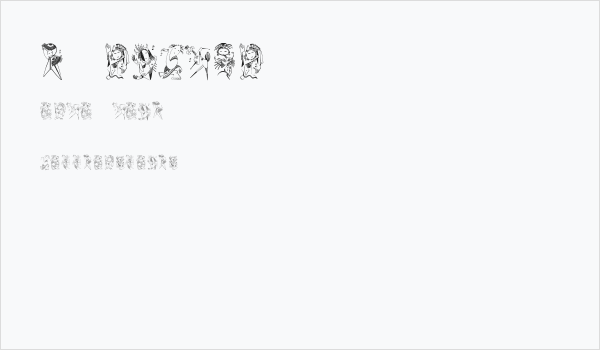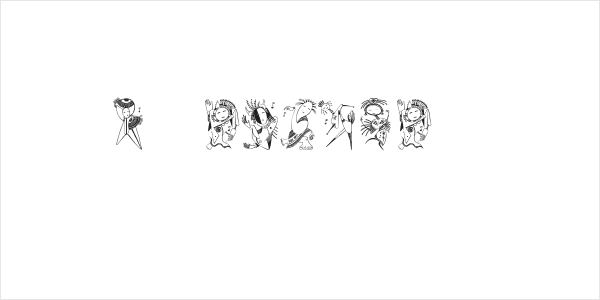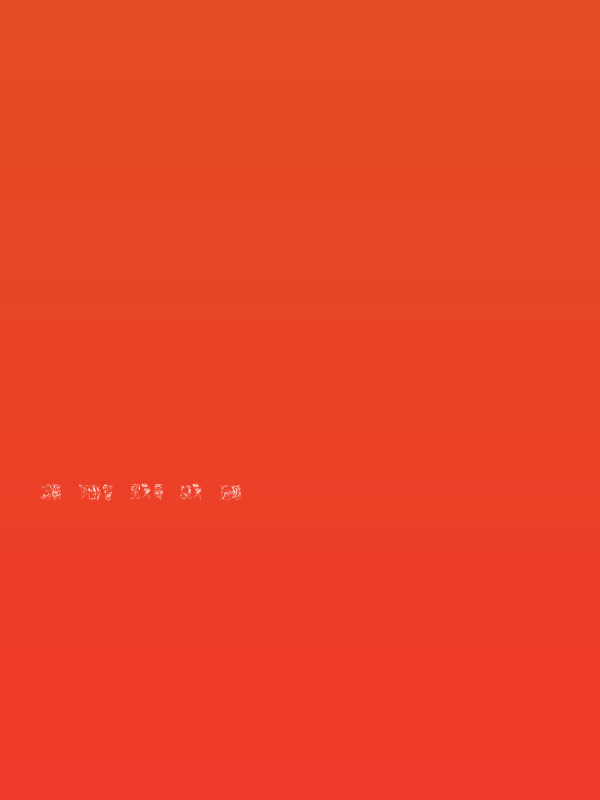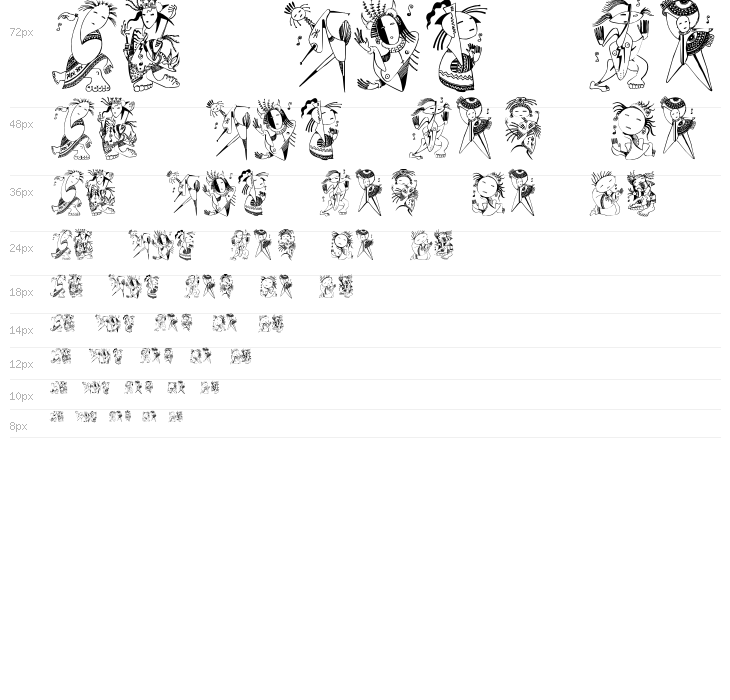
Z-Most Kachina 1 Font
Z-Most Kachina 1 Description
This is not a traditional font but rather a collection of artistic illustrations representing characters in a whimsical and playful style. Each character is uniquely designed with intricate details, showcasing a variety of expressions and poses. The designs are rich in cultural motifs and patterns, giving them a distinctive and lively appearance. These illustrations are more suited for decorative purposes rather than textual communication, as they do not follow the conventional structure of letters or numbers.
| Use Case | Artistic displays, decorative elements. |
| Proposed Projects | Ideal for creative projects such as posters, art prints, or cultural event promotions where a unique and artistic touch is desired. |